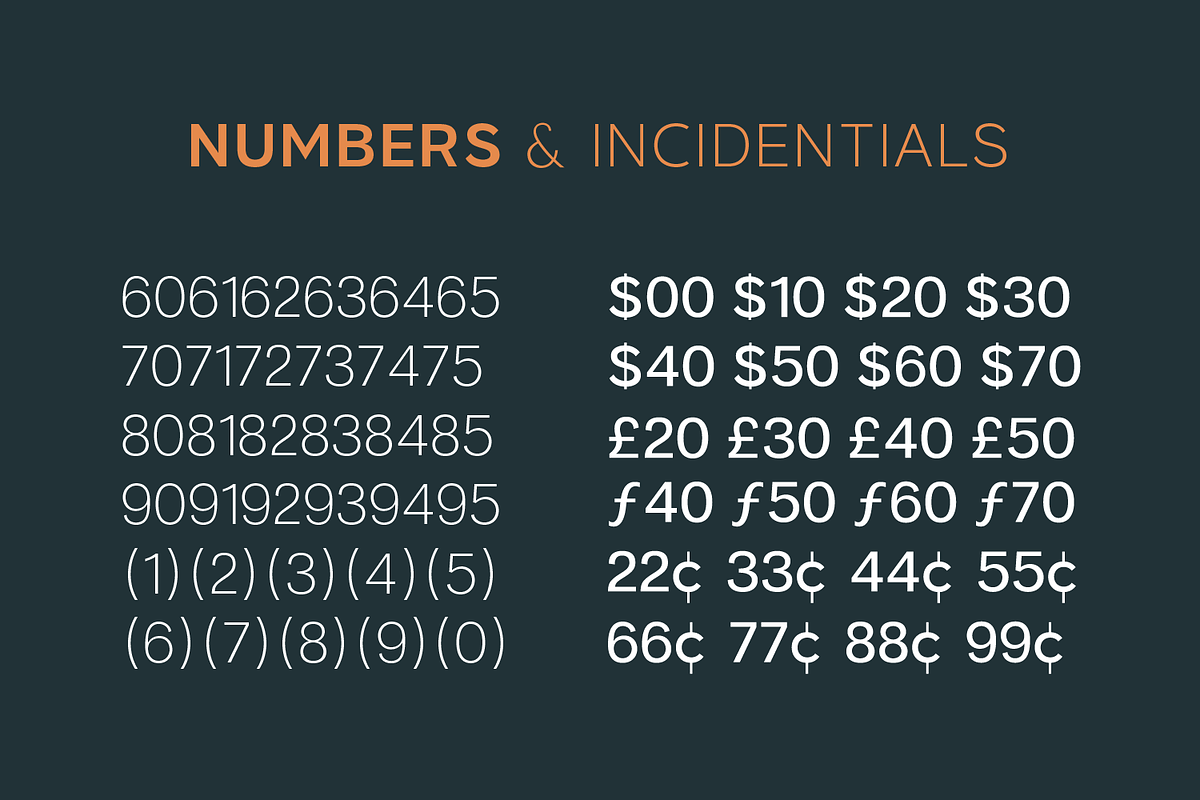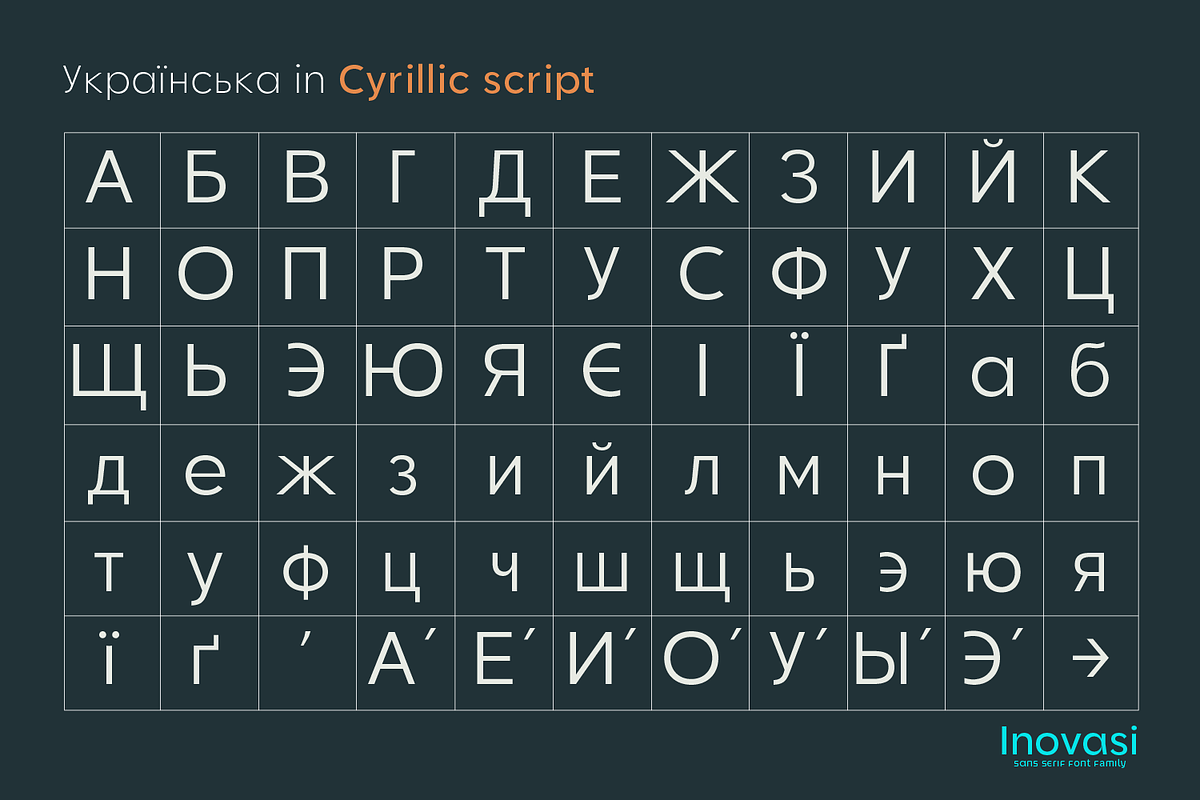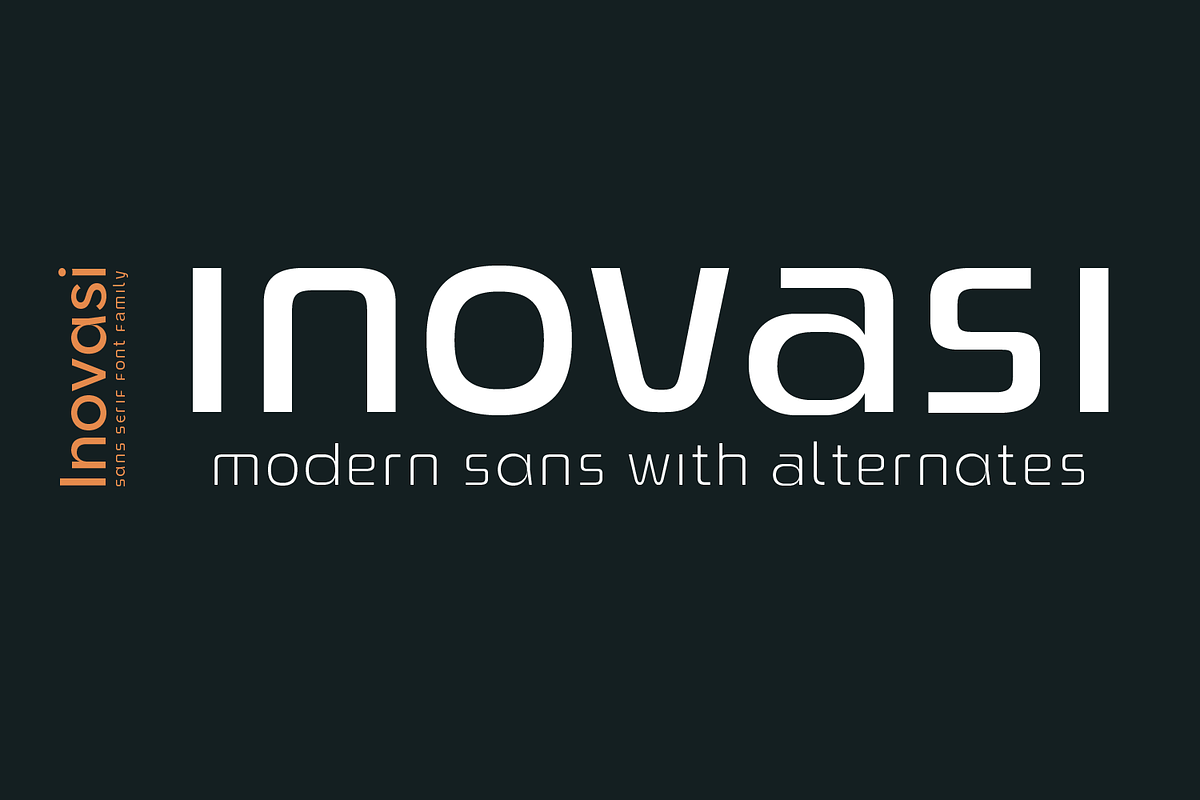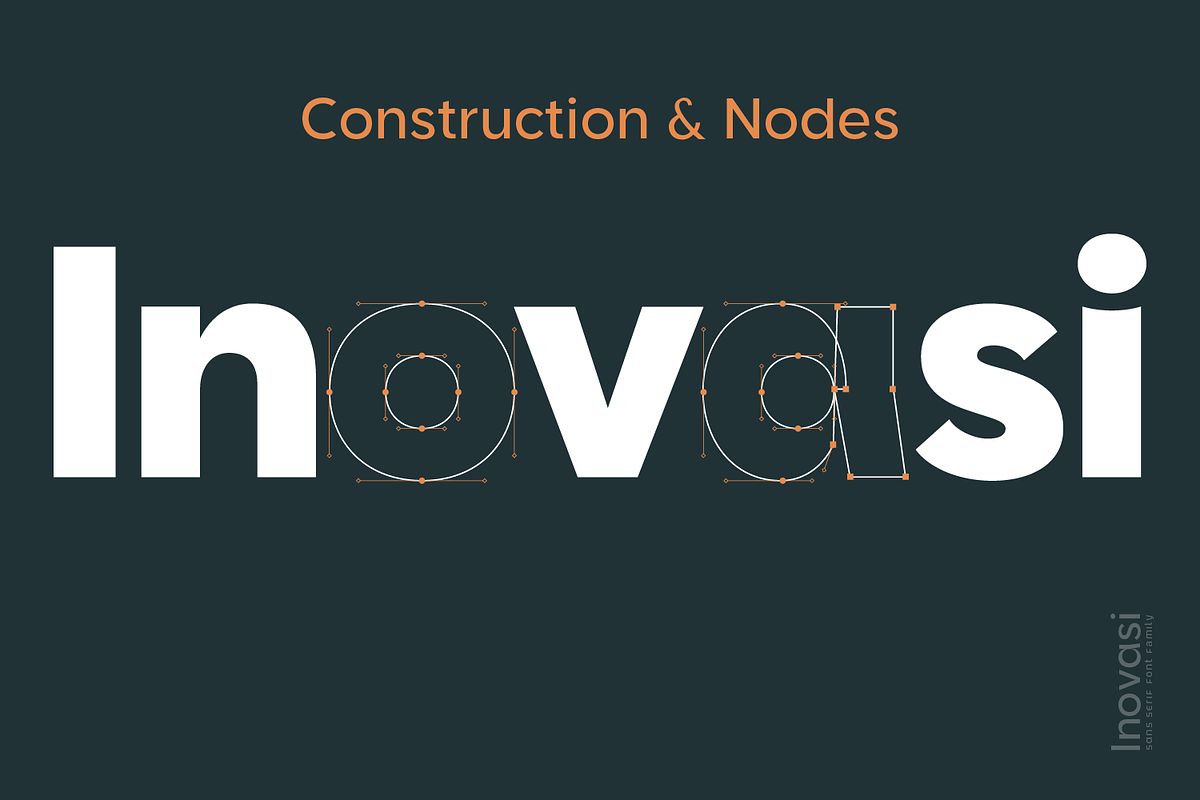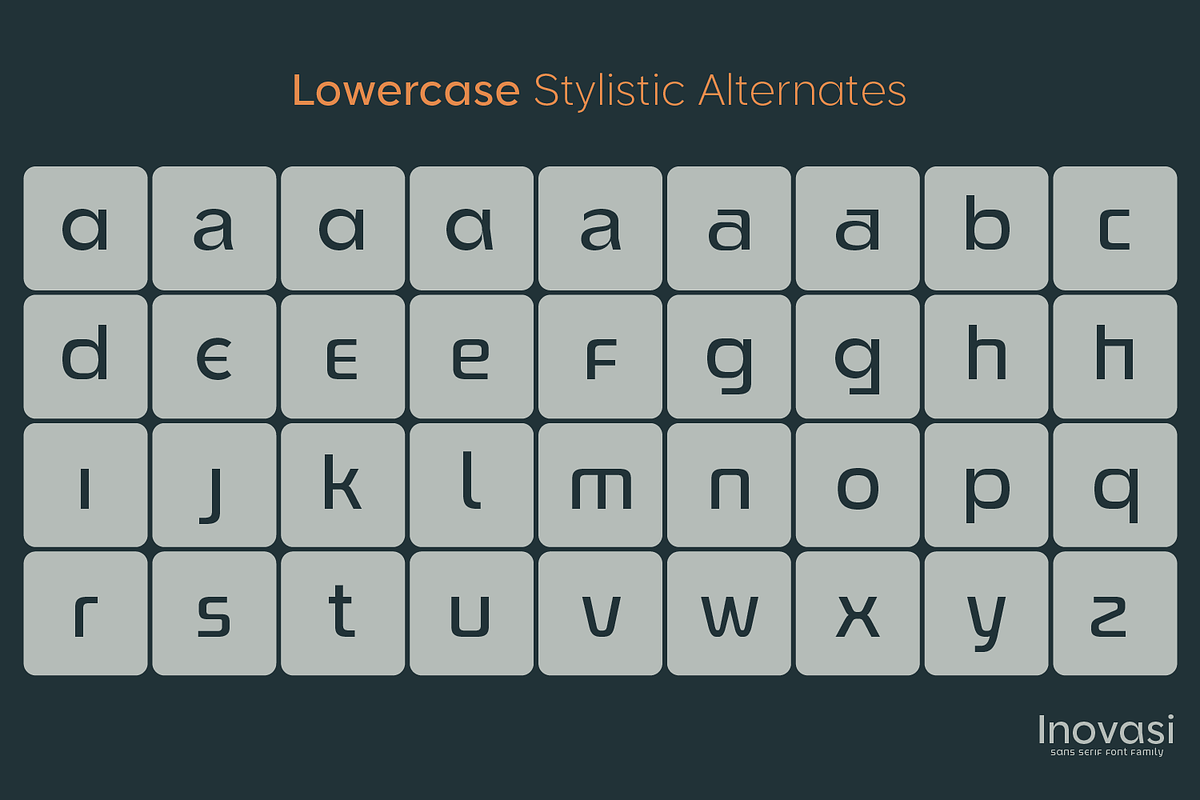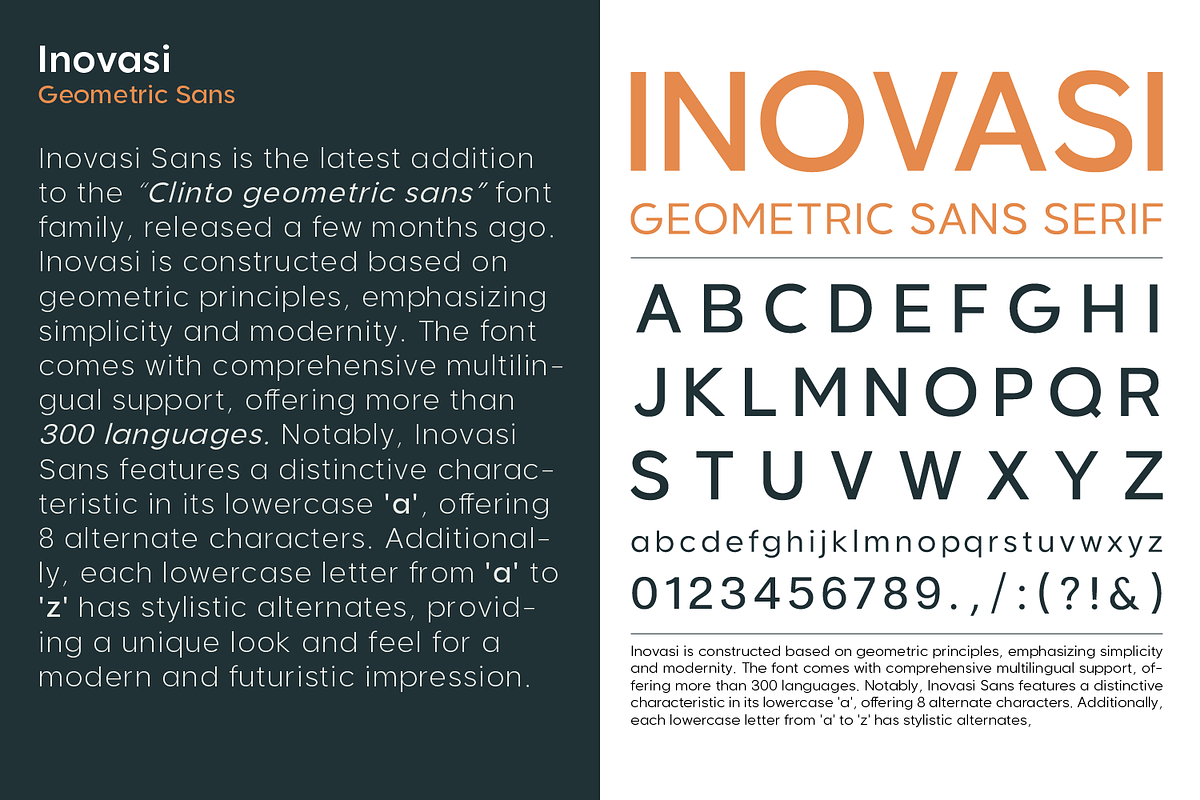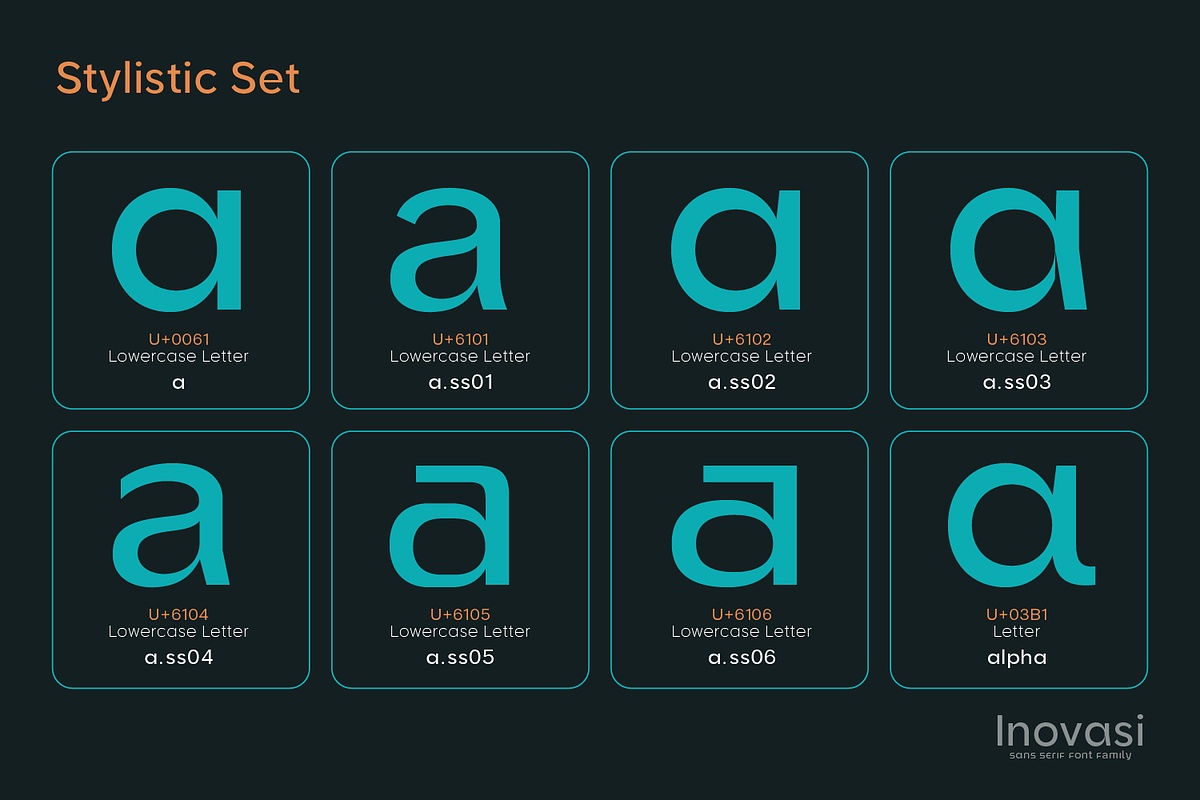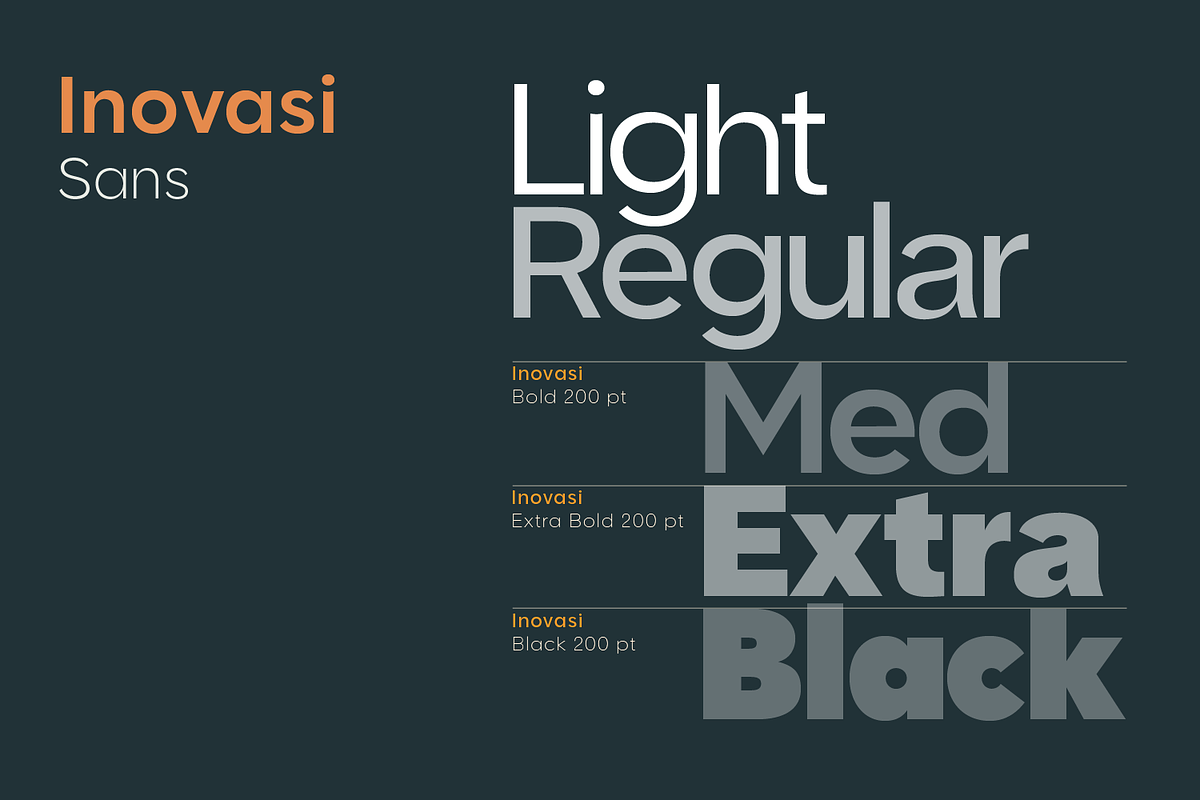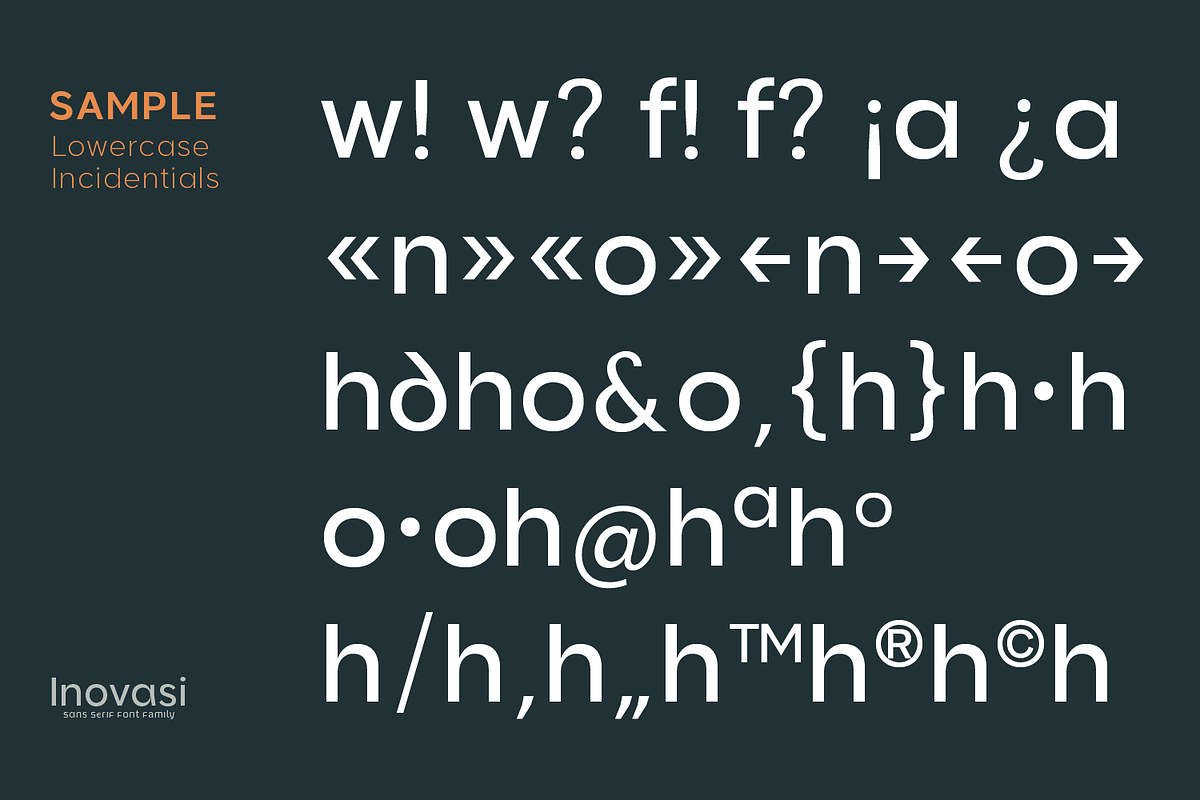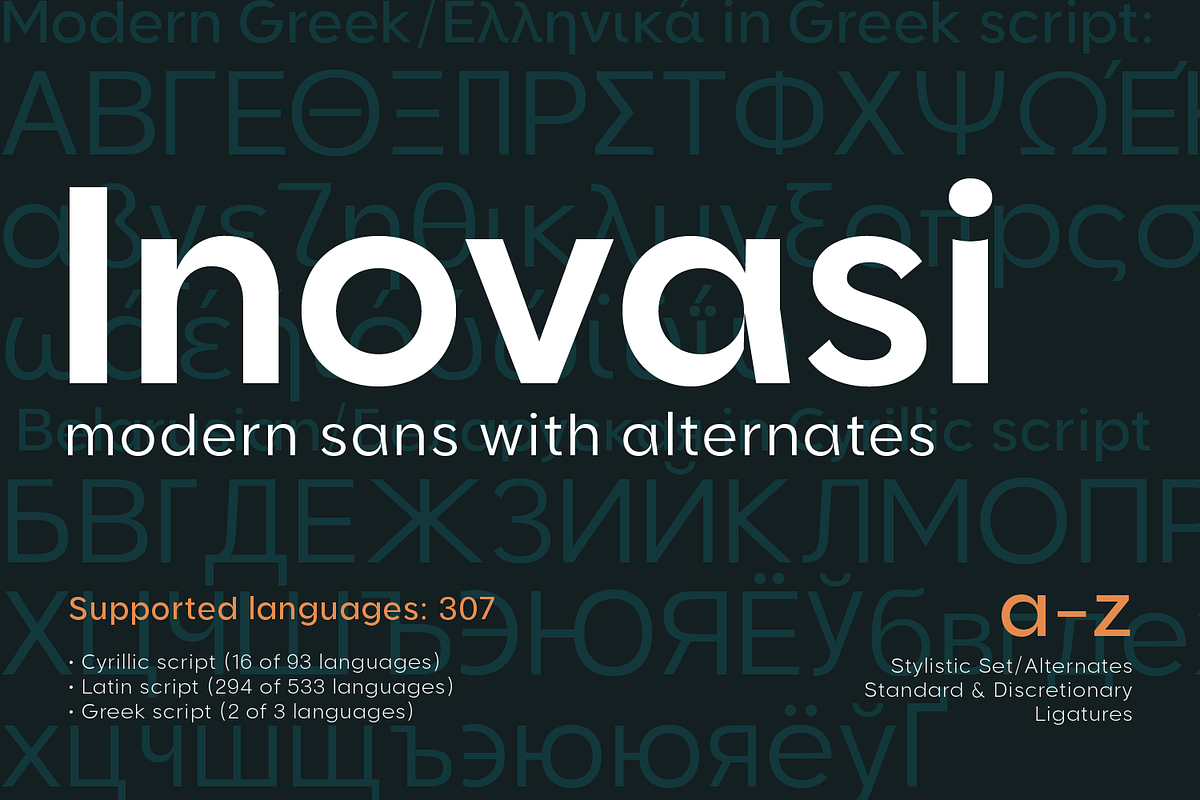
Inovasi Modern Sans Family
Inovasi Sans
"Inovasi Sans is The youngest brother of Clinto Geometric sans font family by Faldykudo, released a few months ago.
Inovasi is constructed based on geometric principles, emphasizing simplicity and modernity. The font comes with comprehensive multilingual support, offering more than 300 languages.
Notably, Inovasi Sans features a distinctive characteristic in its lowercase 'a', offering 8 alternate characters.
Additionally, each lowercase letter from 'a' to 'z' has stylistic alternates, providing a unique look and feel for a modern and futuristic impression."